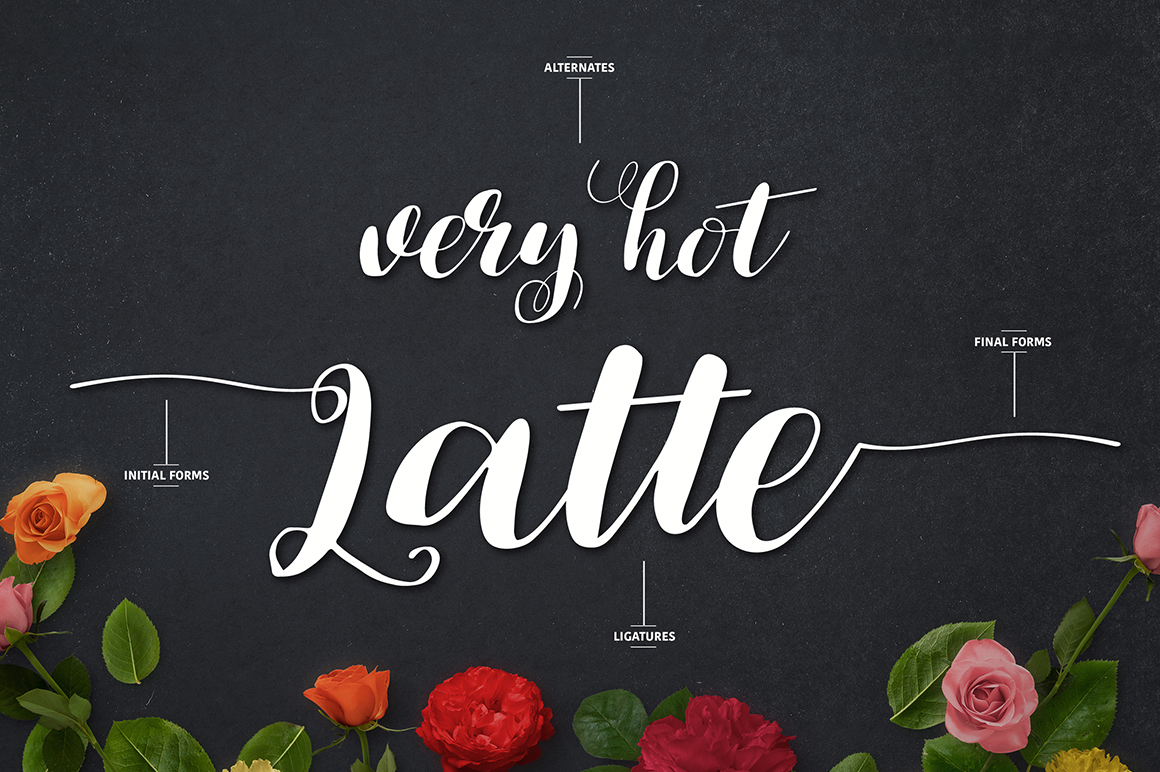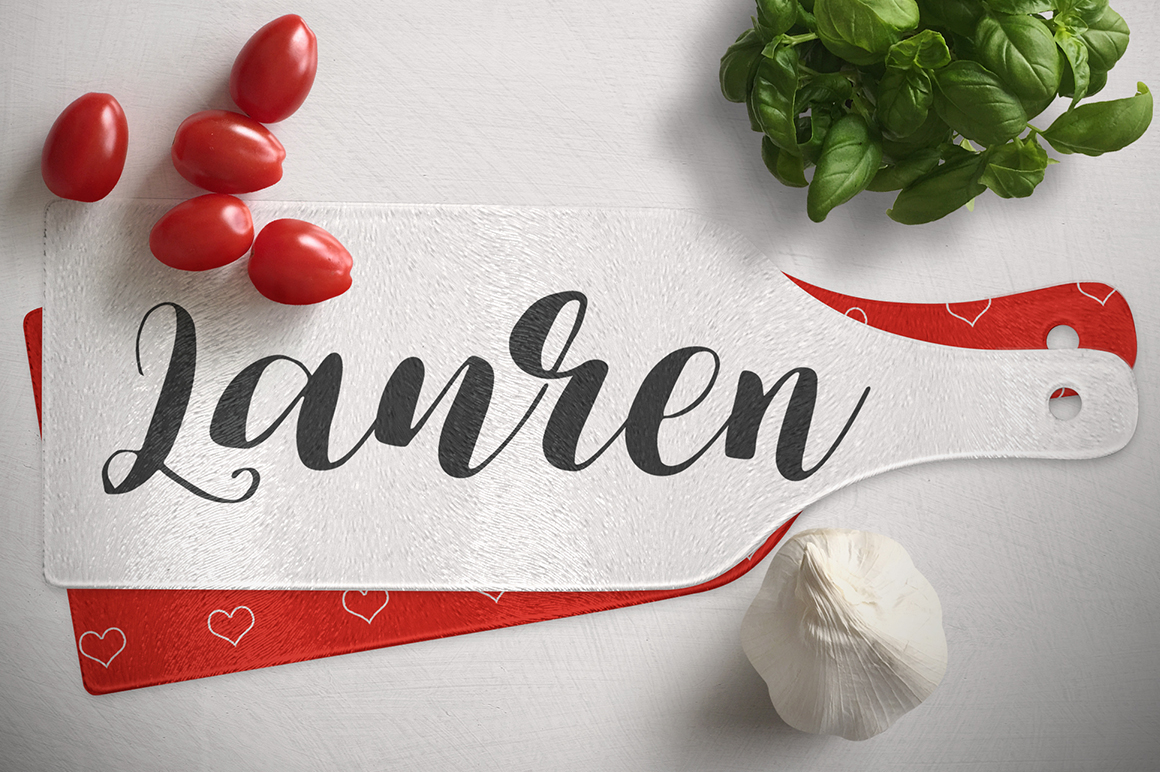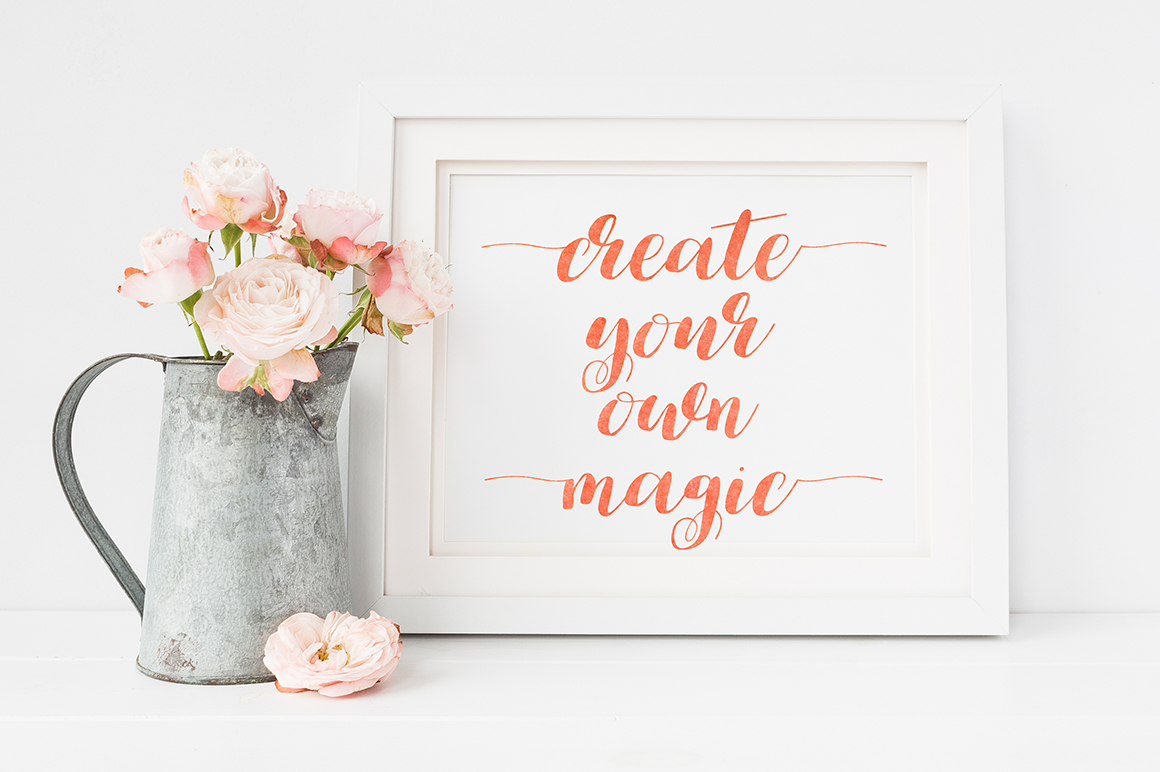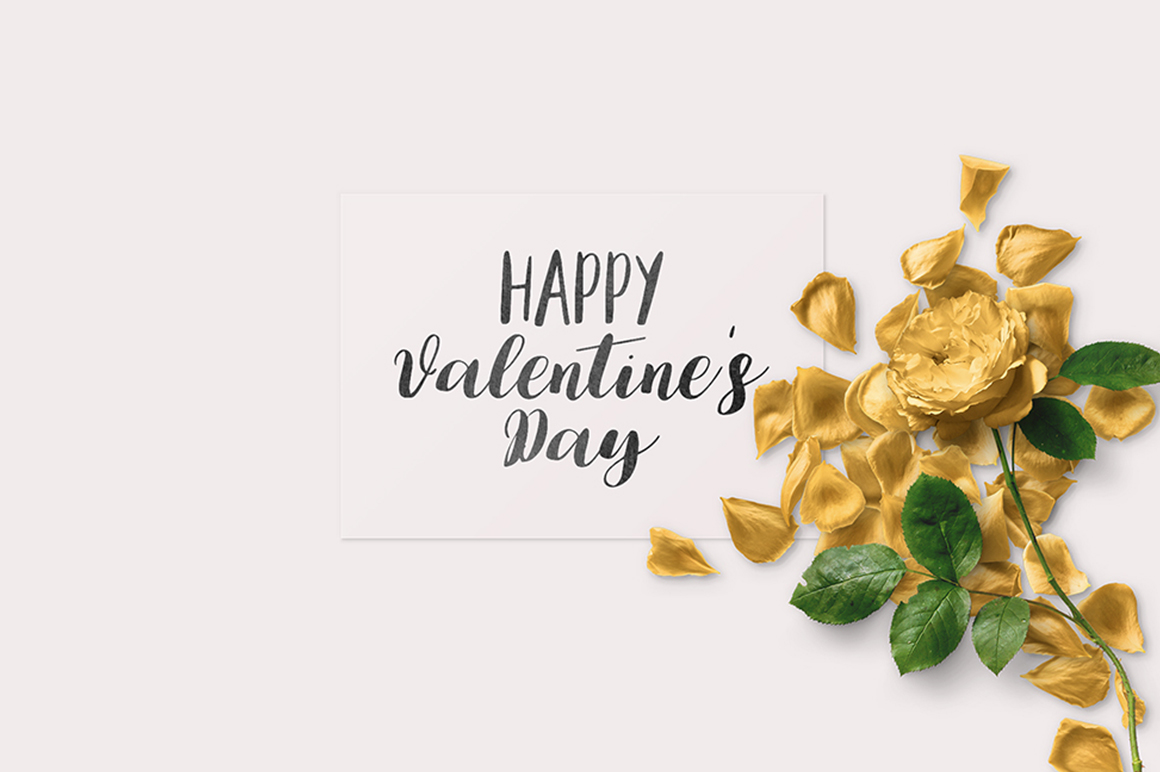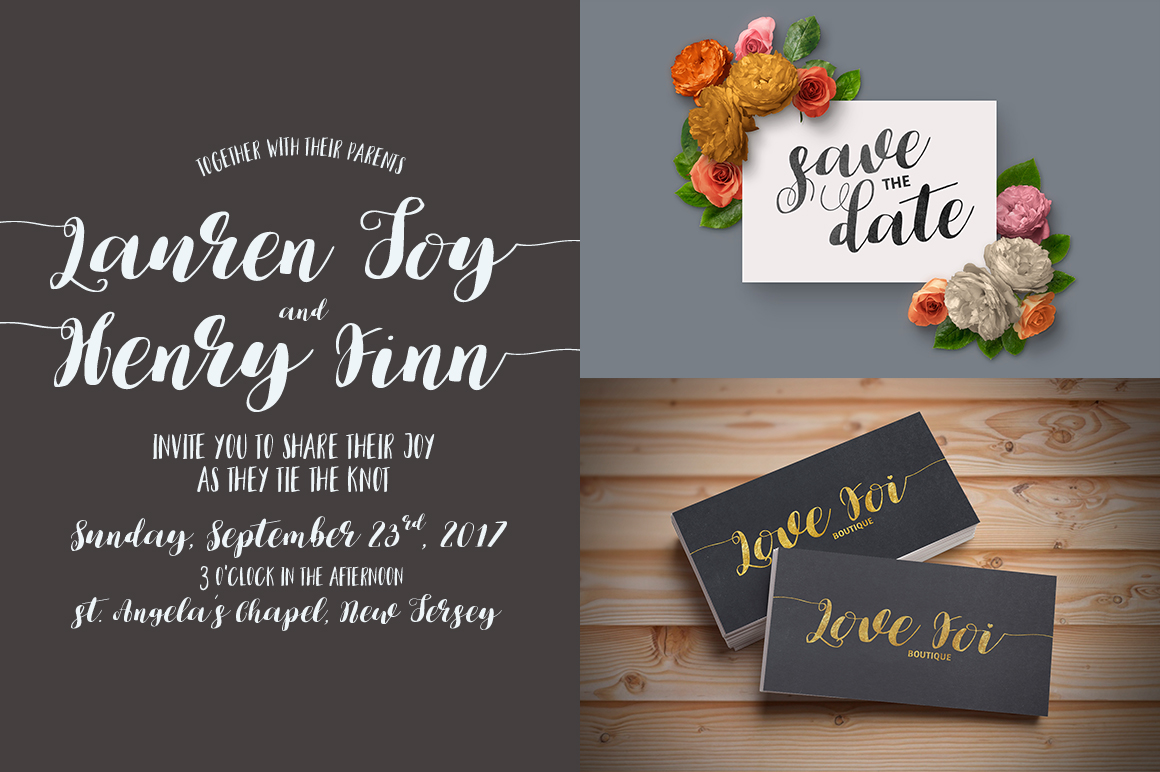
Lauren is a beautiful hand-made calligraphy font created by Dmitriy Chirkov. Lauren Font is perfect for greeting cards, branding materials, business cards, quotes, posters, and more!